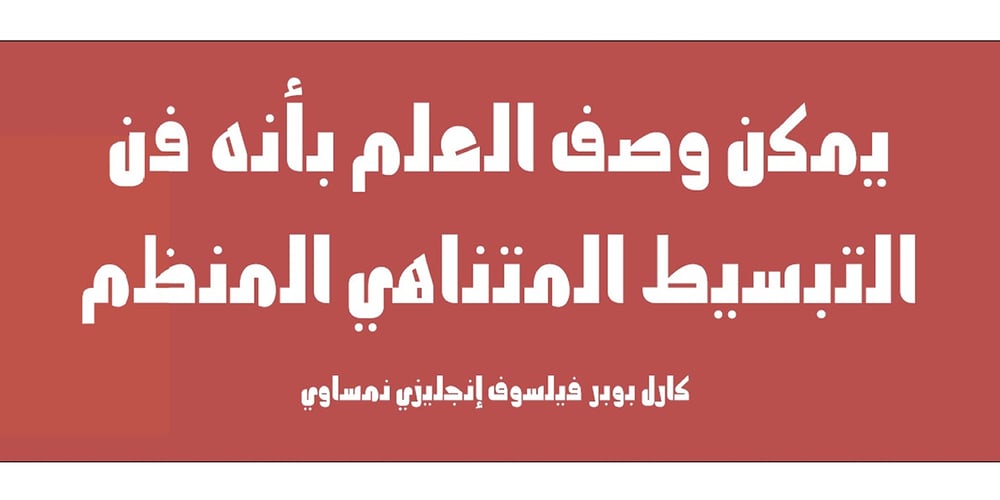
Hazim Font Family was designed by Saad D. Abulhab and published by Arabetics. Hazim contains 2 styles and family package options. Hazim is a display font designed with isolated letters. It uses thin white slits positioned within extra bold black space glyphs emphasizing the main visual characteristics of the Arabetic letters in two positions: initial/medial and final/isolated. The spacing widths between glyphs match that of the slits to give a virtual cursive look and feel. The name Hazim was chosen to honor a friend of the designer, Hazim al-Khafaji. Hazim supports all Arabetic scripts covered by Unicode 6.1, and the latest Arabic Supplement and Extended-A Unicode blocks, including support for Quranic texts. It comes with one weight and a left-slanted “italic”. The script design of this font family follows the Arabetics Mutamathil Taqlidi style and utilizes varying x-heights. The Mutamathil Taqlidi type style uses one glyph per every basic Arabic Unicode character or letter, as defined by the Unicode Standards, and one additional final form glyph, for each freely-connecting letter in an Arabic text. Hazim includes the required Lam-Alif ligatures in addition to all vowel diacritic ligatures. Hazims’s soft-vowel diacritic marks (harakat) are only selectively positioned with most of them appearing on similar lower or upper positions to make sure they do not interfere with the letters. Kashida is enabled.